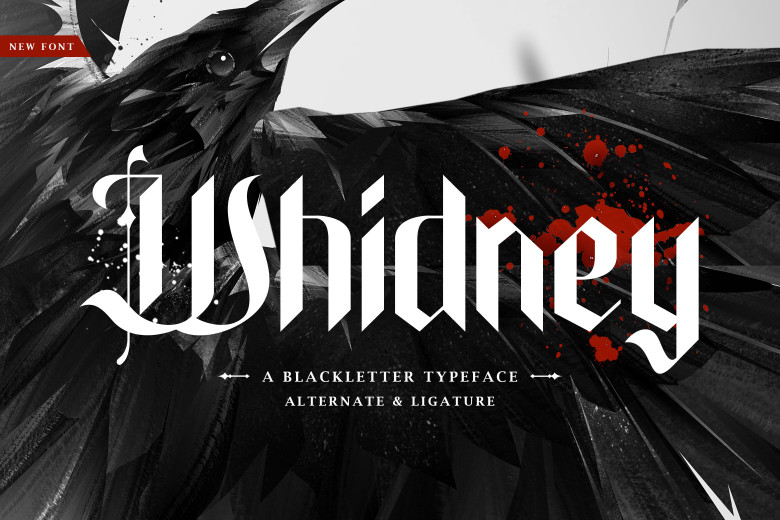
Whidney Font
Something new and bold, “Whidney” is a blackletter typeface that showcases medieval elegance with Gothic look to add some classic drama for your designs.
“Whidney,” meanwhile, with its ornate details and pointed serifs offers a mix of flexibility and old world elegance suitable for branding, packaging or posters.
“It was never specifically decided that we would call our font ‘Whidney.’ The name just seemed to fit with how it feels. Classic Gothic, as well.”
Whidney is an amazing way to step into the world of medieval elegance and let your creativeness take your readers on a tour of past-age human imagination.
Whidney Blackletter Font